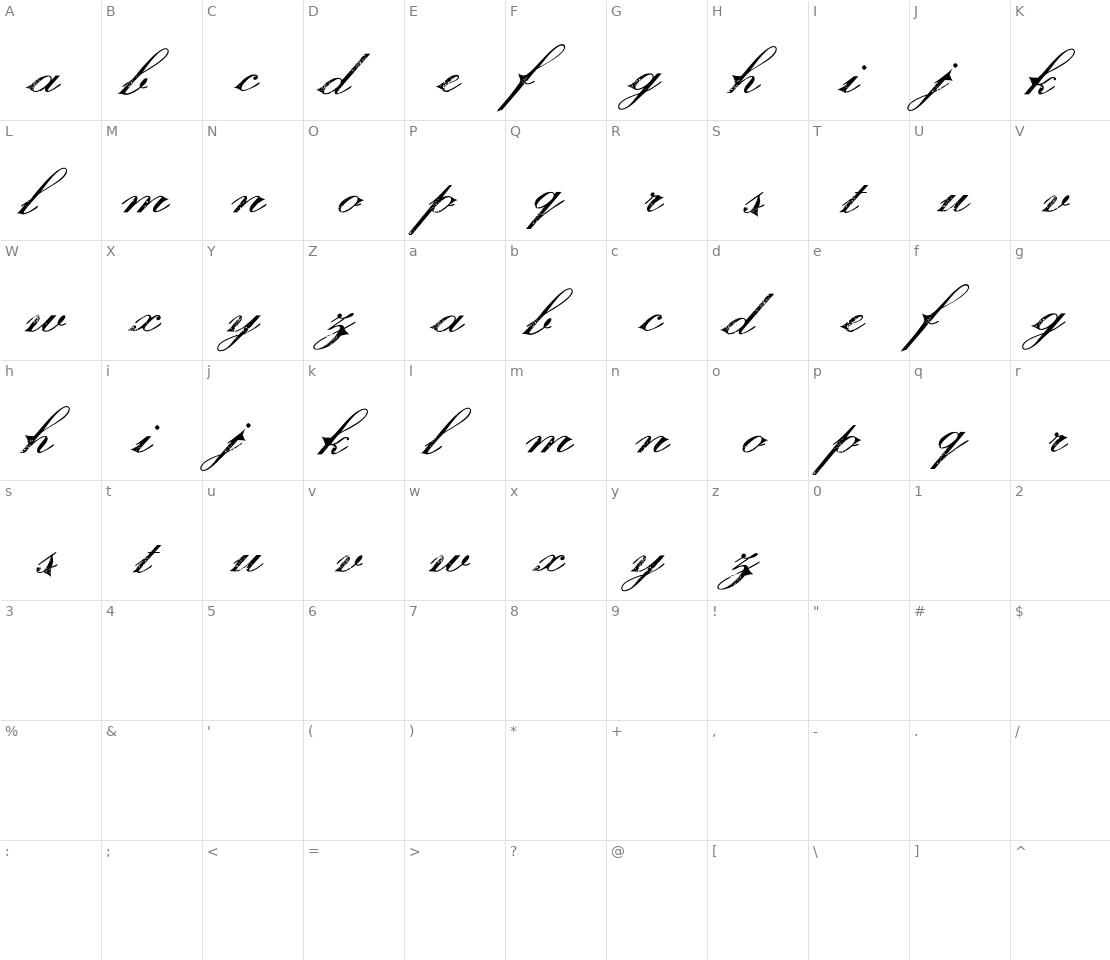
Mya Rose
Mya Rose is a textured script from Chris Vile that balances elegance with visible grit, its flowing cursive letterforms roughed up with a distressed, vintage finish. The contrast is what makes it interesting: the strokes have the grace of wedding calligraphy, but the surface feels weathered and lived-in, like a love letter found in an old drawer. Best for invitations, branding, and editorial work where you want something romantic but not too polished.